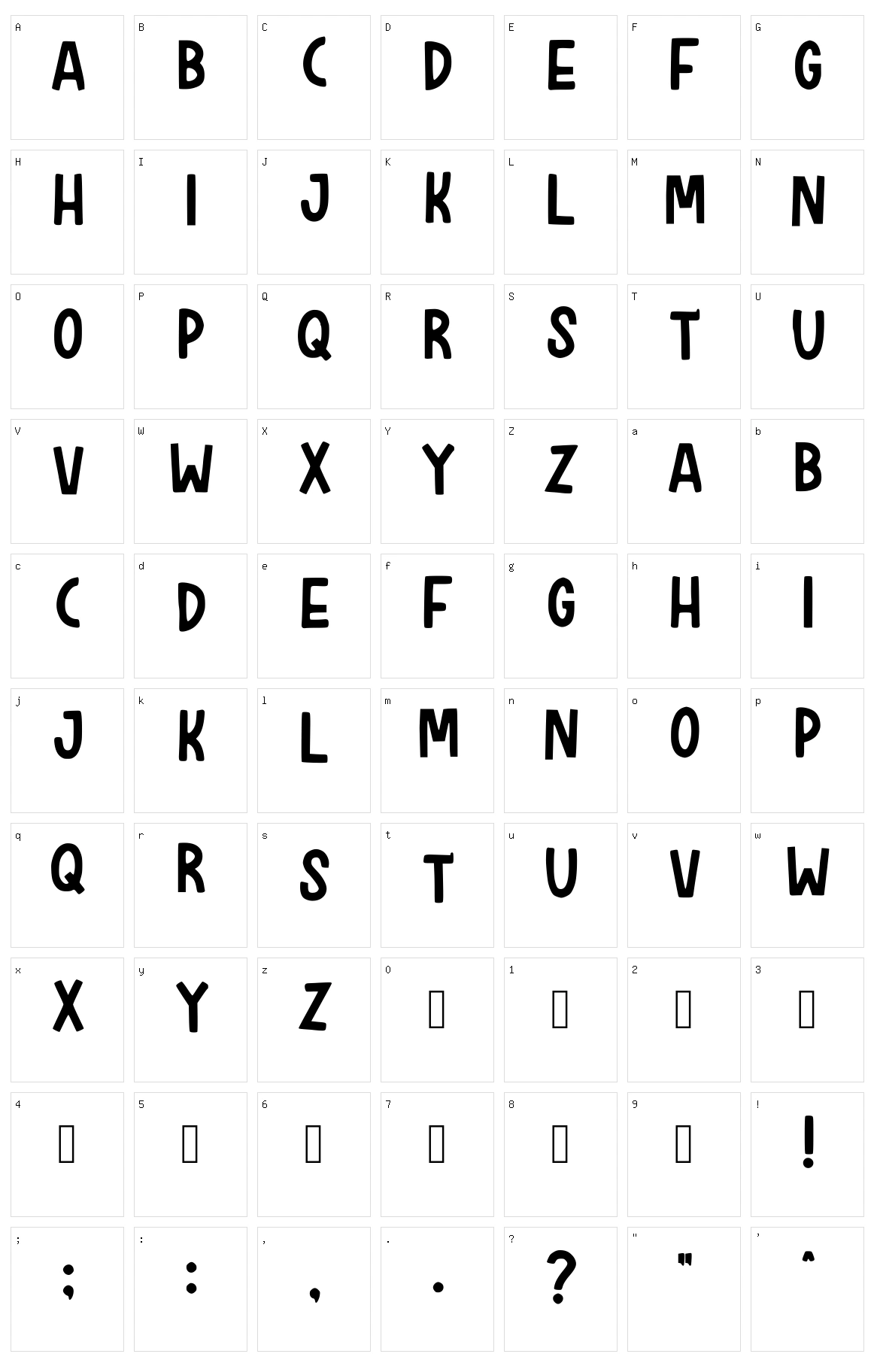
The free font Simpliugli is carefully designed by Pure Charles, showcasing a thoughtful balance of creativity and usability and falls under the Cartoon font style. When you download the ZIP file, it contains only 7.67 KB of font files, making it lightweight and quick to download. Please review the license details below to understand permitted usage and distribution rights. If license information is not available, we recommend using this font for personal projects only or contacting the author directly for commercial usage permissions.